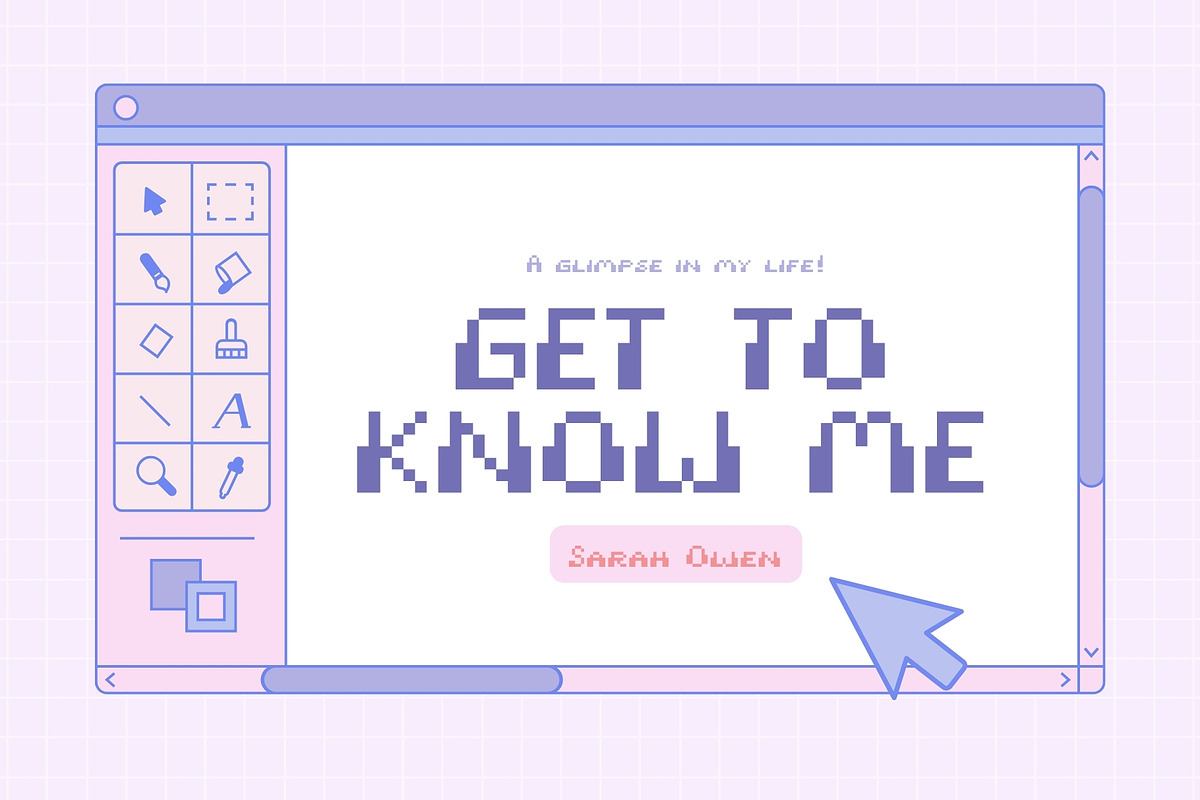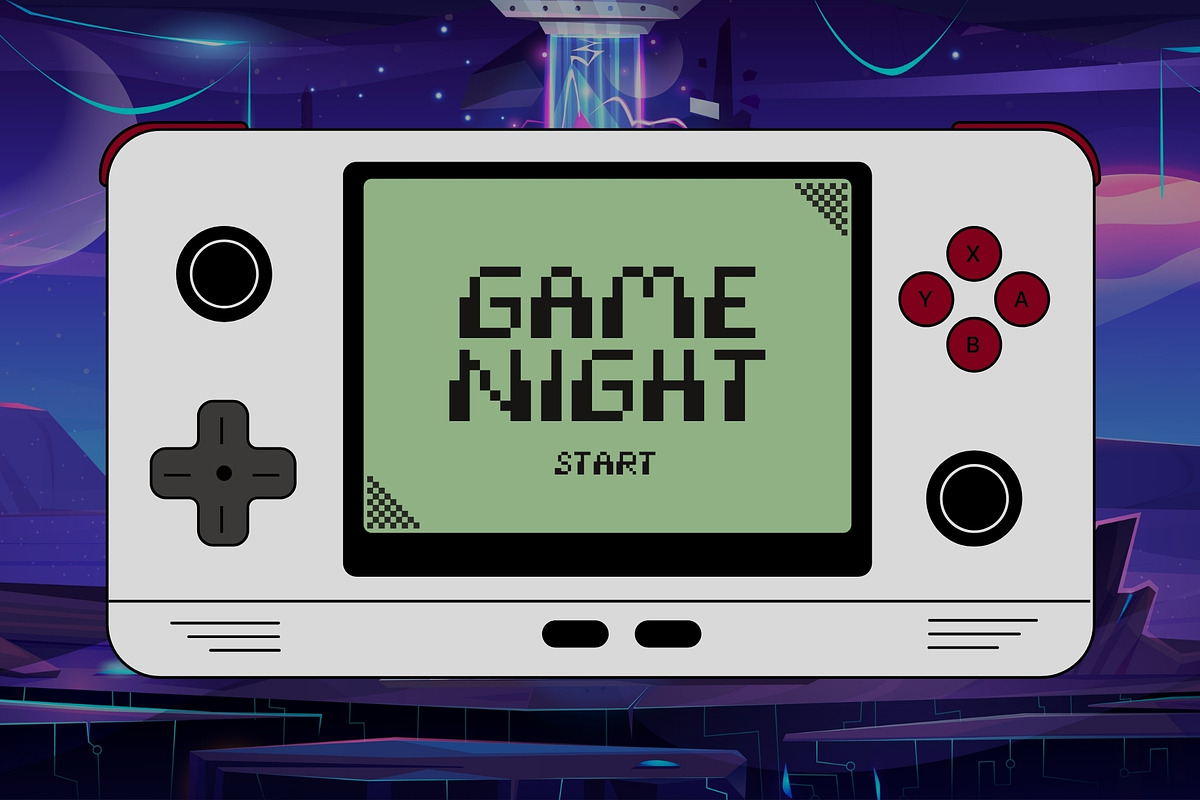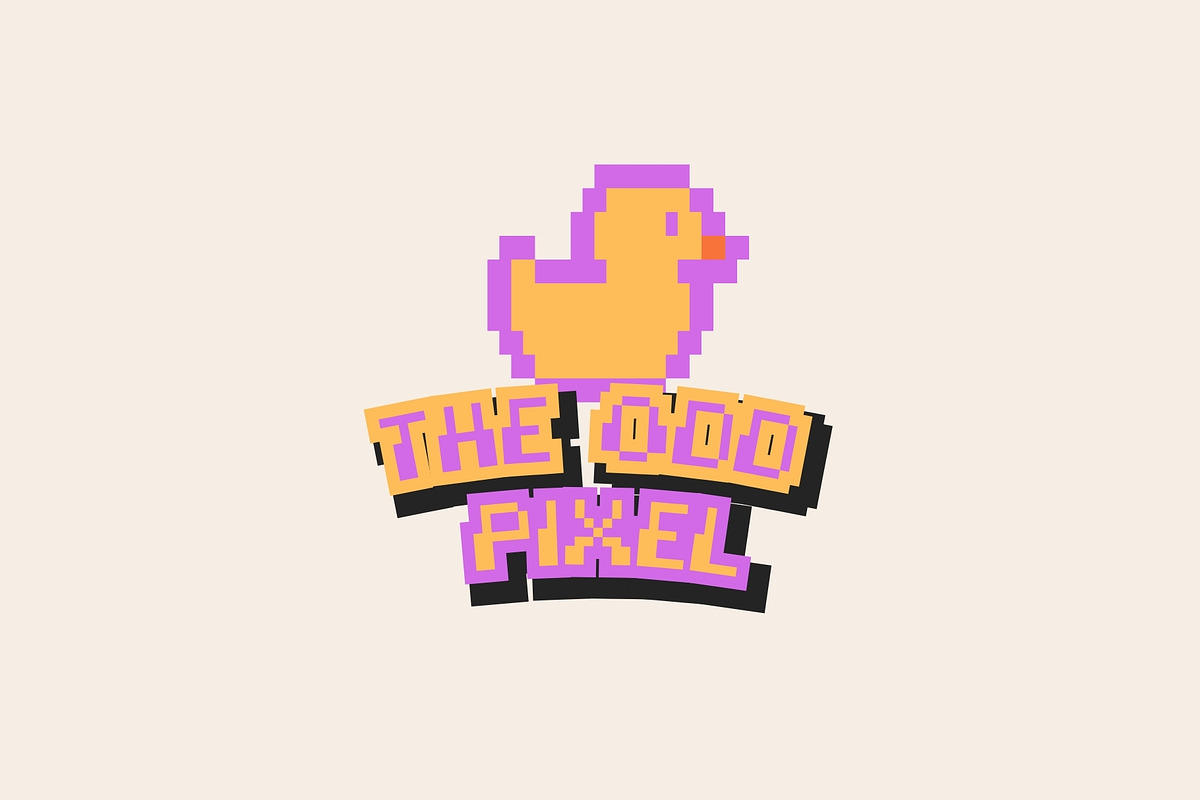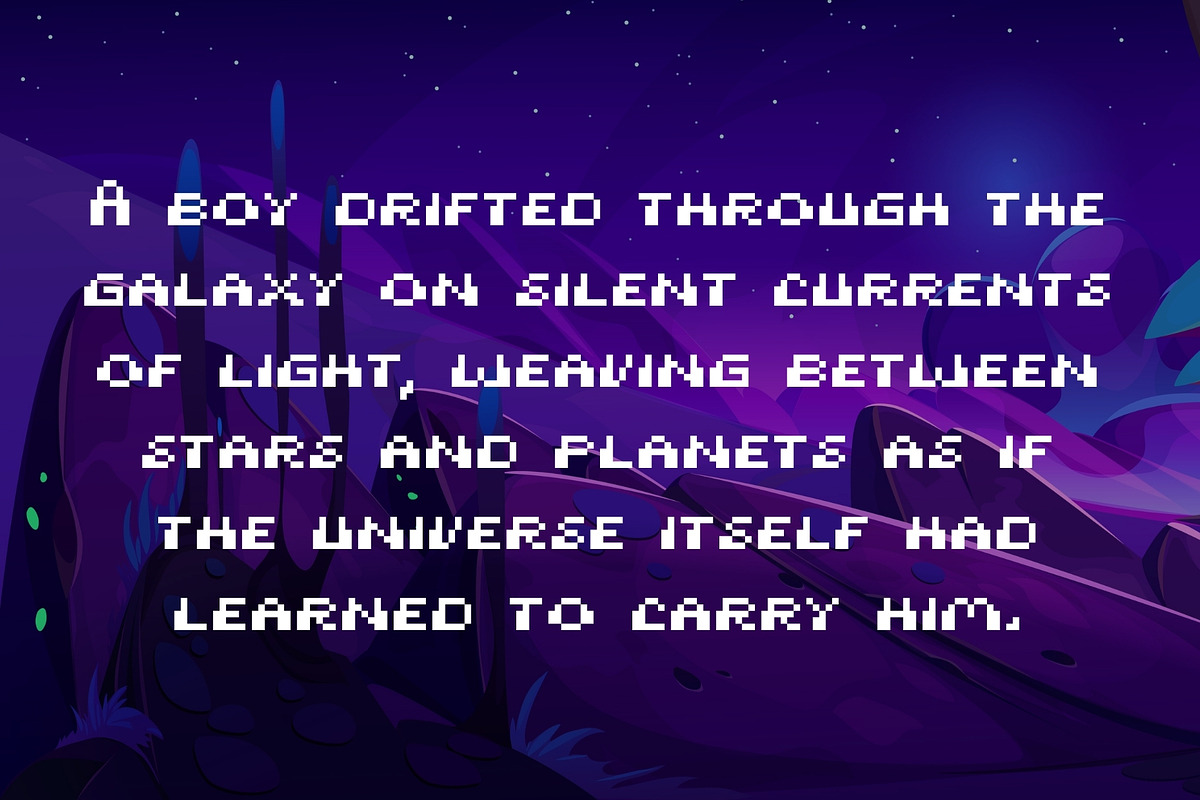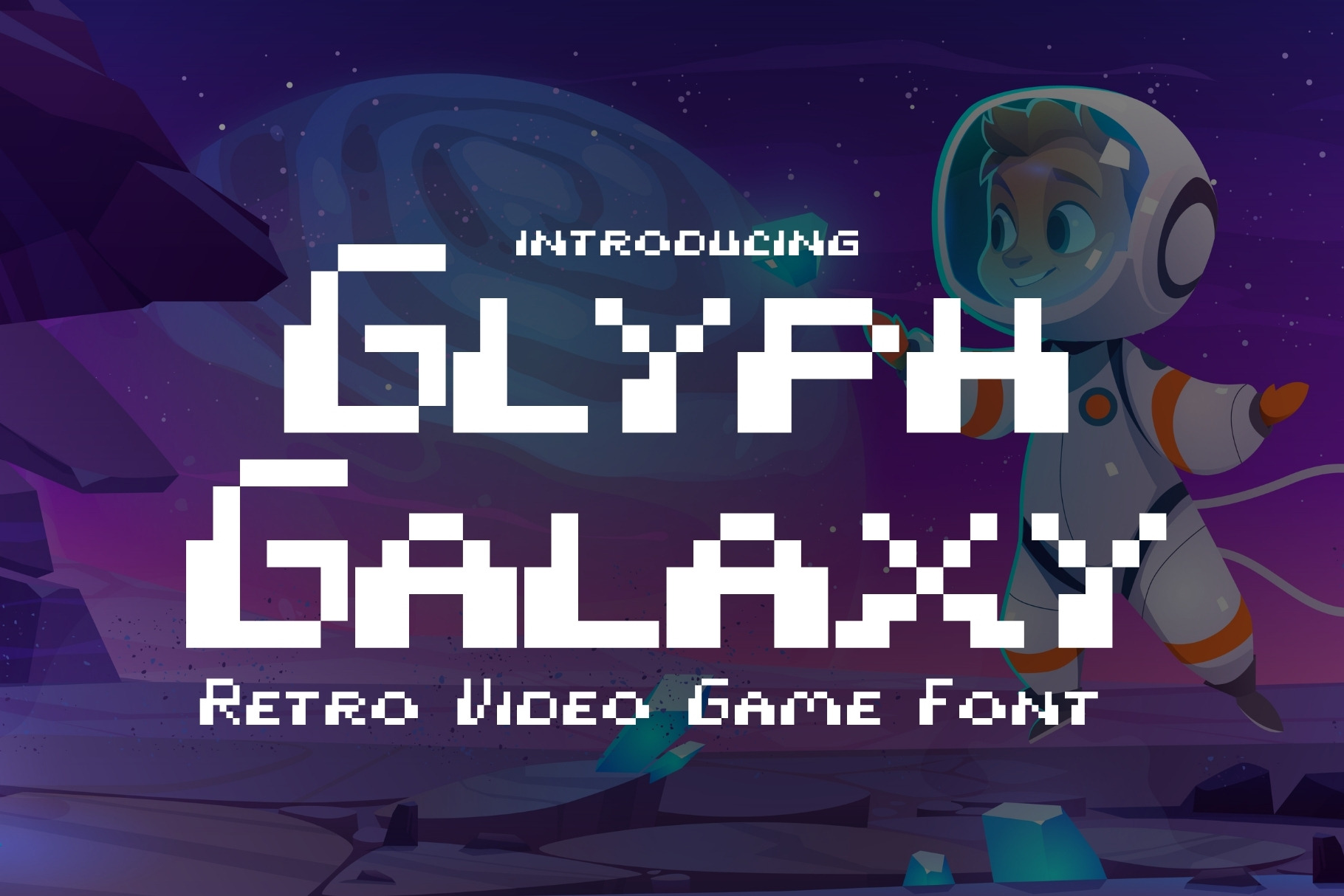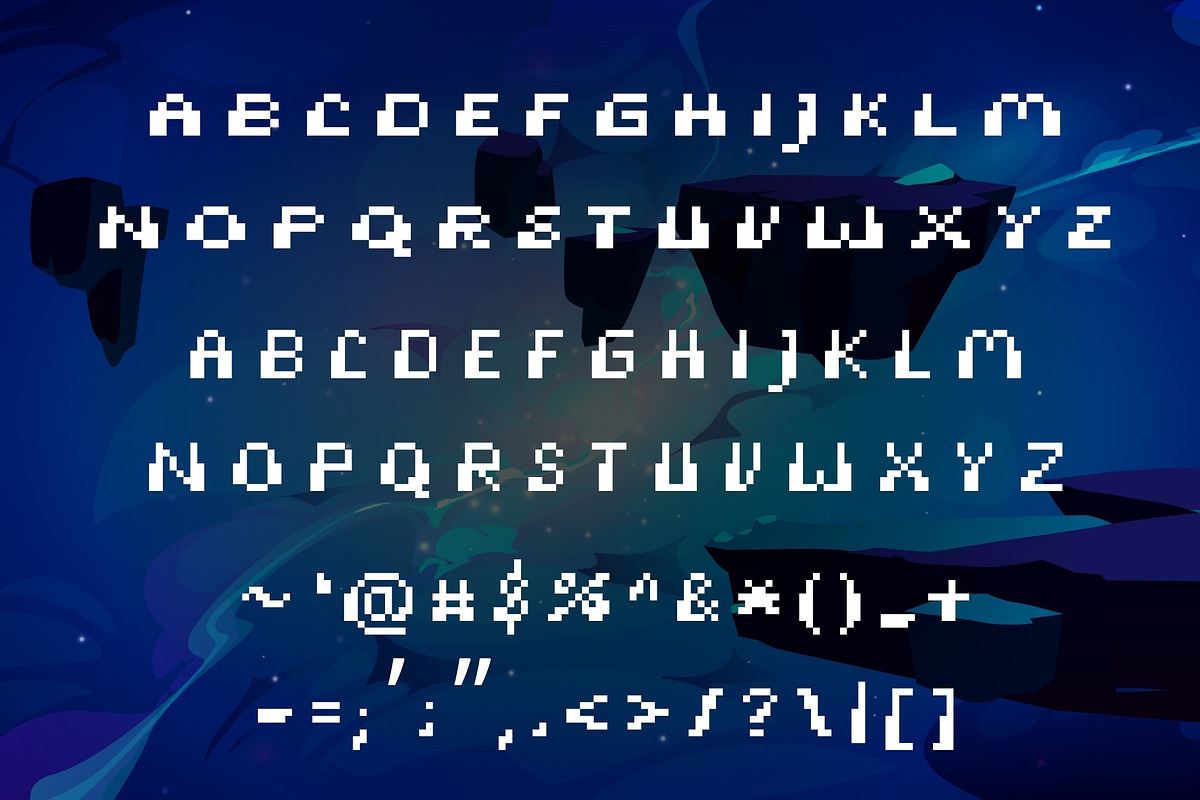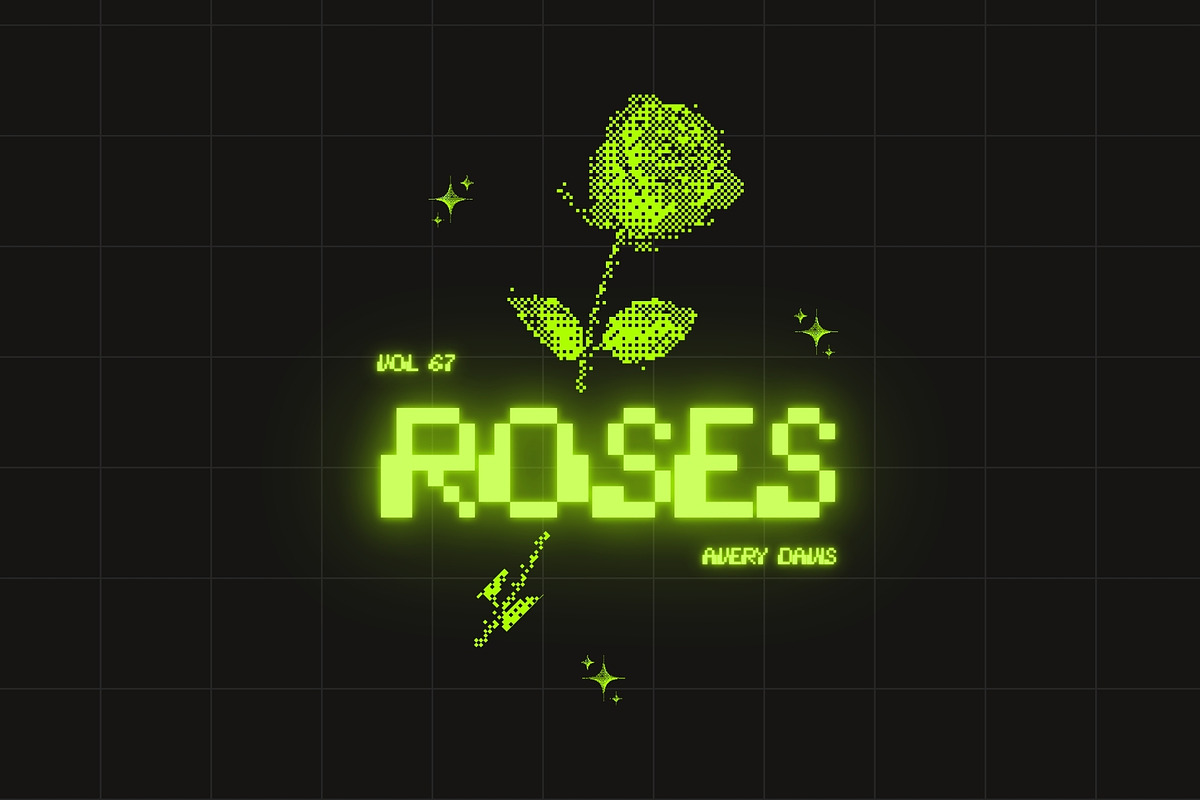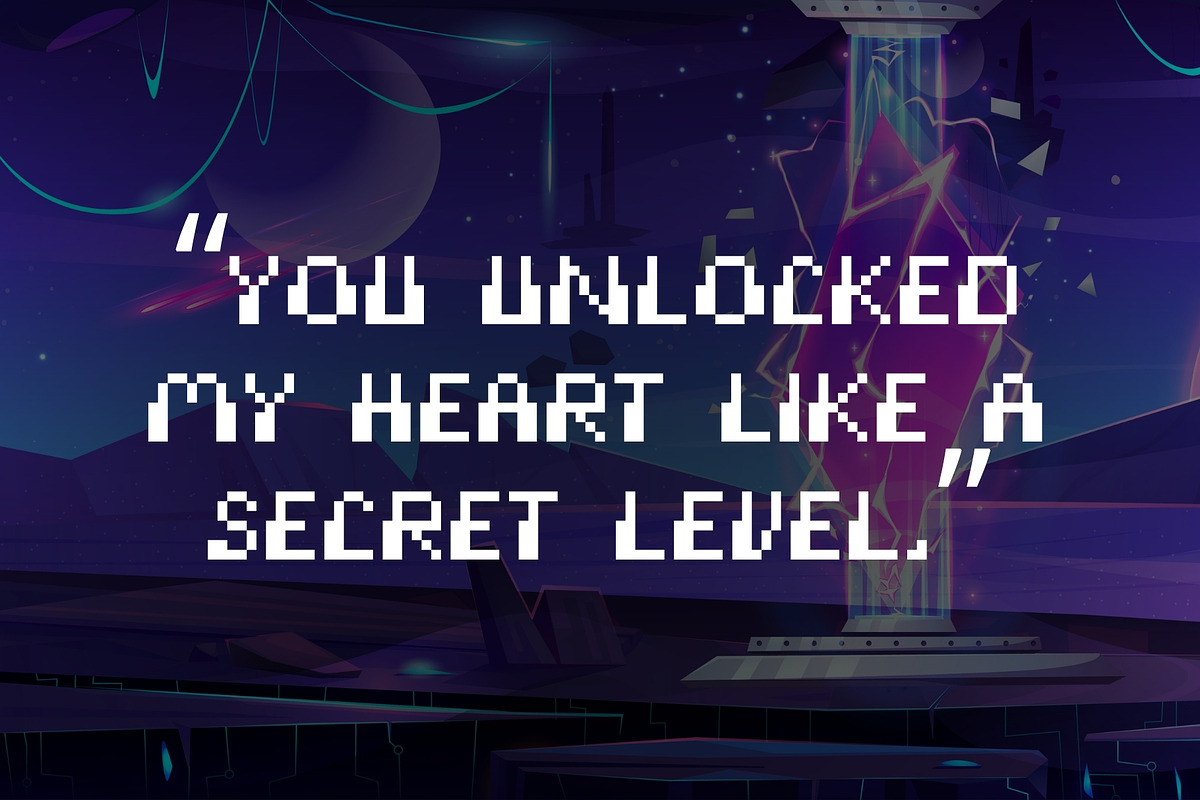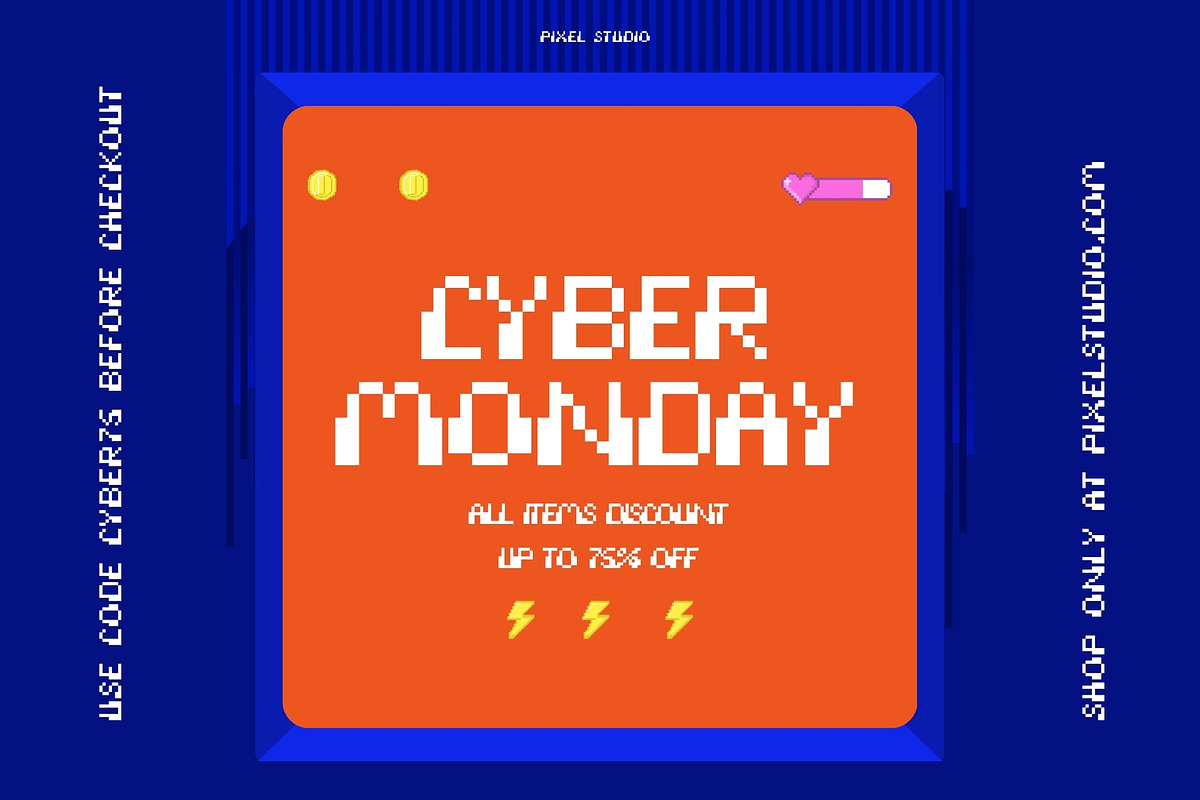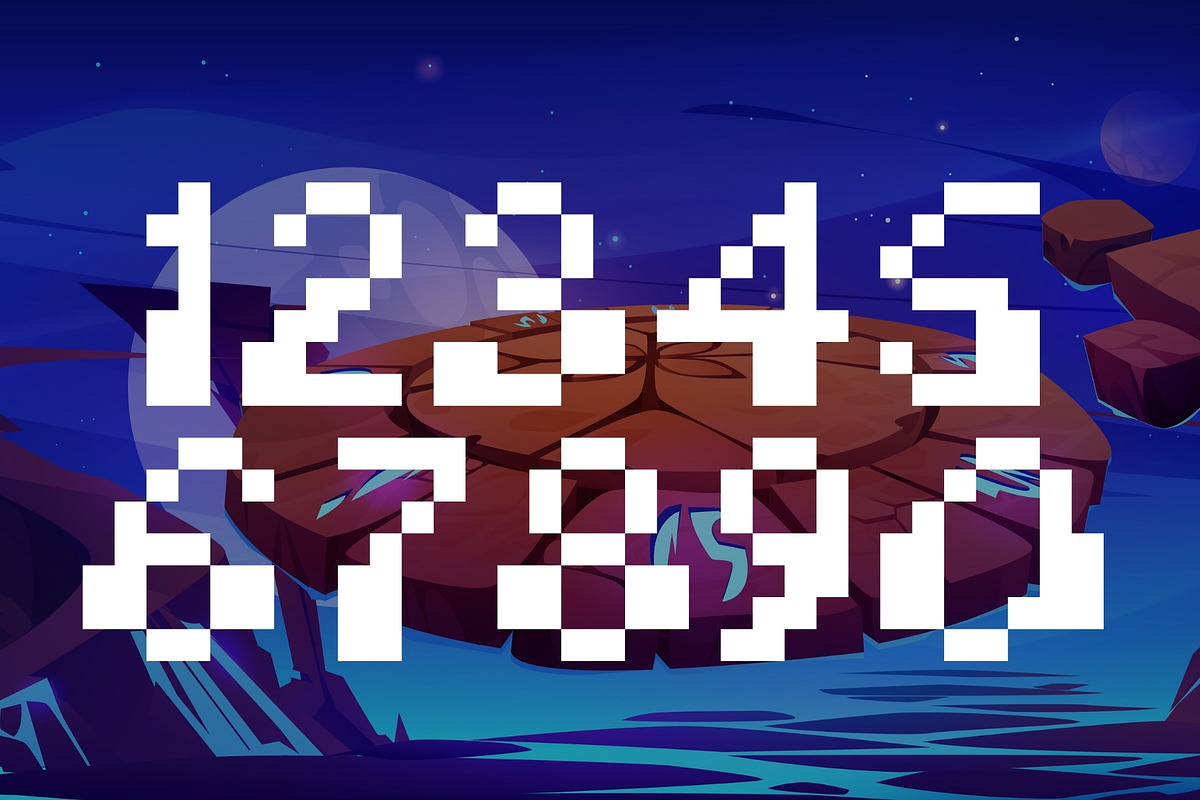
Glyph Galaxy - Retro Video Game Font
Glyph Galaxy is a retro-inspired 8-bit pixel font that captures the magic of classic video games and digital nostalgia. Designed with crisp square forms and authentic pixel precision, this typeface brings the charm of old-school arcade screens into modern creative projects.
Every character is built on a structured pixel grid, delivering a clean yet nostalgic aesthetic that feels straight out of vintage gaming consoles. Its balanced design ensures readability while maintaining that iconic low-resolution look that defined an era.
Perfect for video game design, posters, UI interfaces, branding, YouTube thumbnails, social media graphics, and creative projects, Glyph Galaxy adds a playful, digital edge wherever it's used. Whether you're building a retro game, designing pixel art visuals, or creating nostalgic branding, this font delivers instant throwback vibes.
Bold, fun, and unmistakably retro—Glyph Galaxy is your gateway to pixel-perfect creativity.